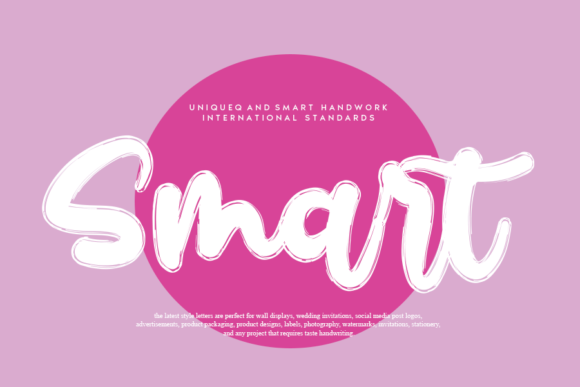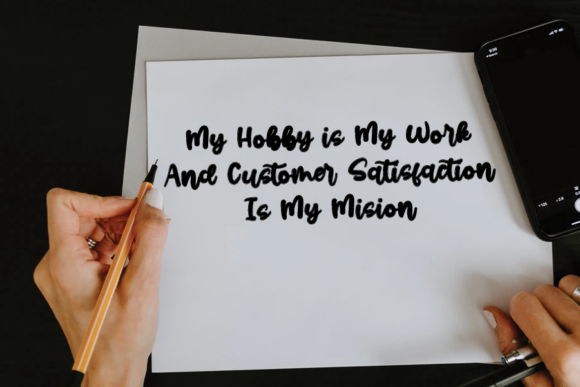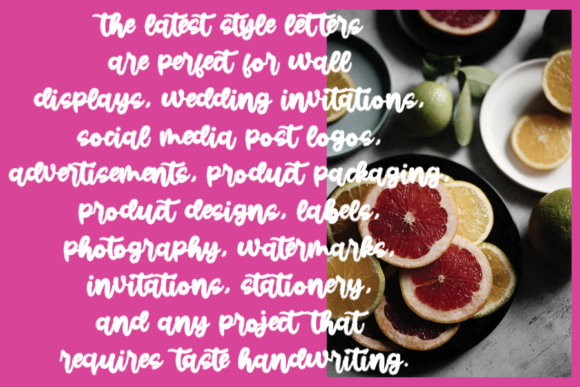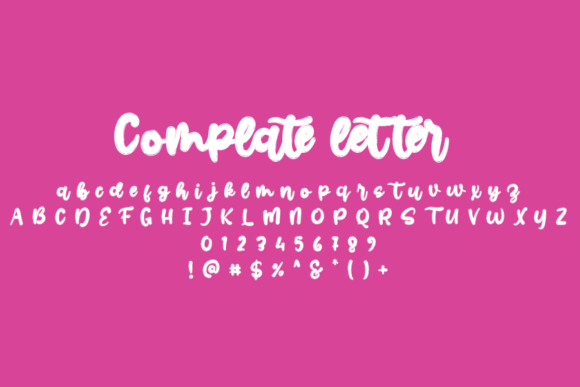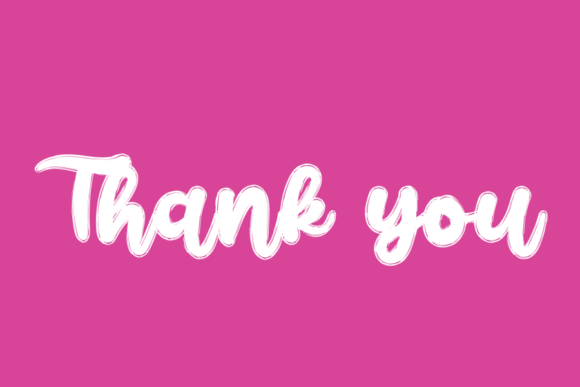
Smart Font
About Smart Font
Smart is a sweet, round and chunky lettered handwritten font. Fall in love with its incredibly versatile style and use it to create gorgeous wedding invitations, beautiful stationary art, eye-catching social media posts, and much more!